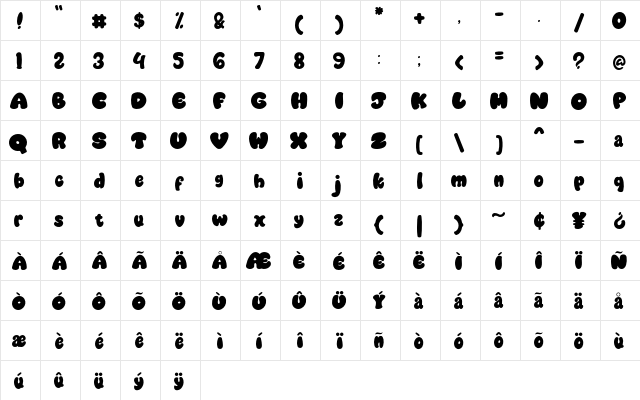
Cookies chip Regular
| Foundry | kong esport |
| Designer | Kong Esport |
Design Context for Cookies chip Typeface
Cookies chip is a composed and adaptable typeface that performs quietly and consistently across a wide range of design contexts.